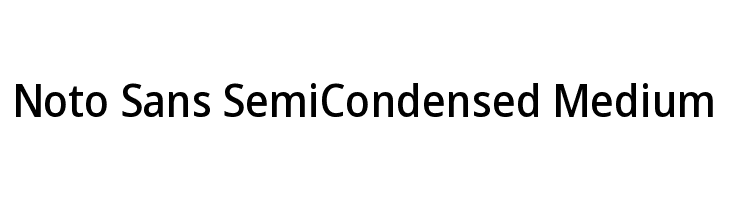
A modern, semi-condensed sans-serif font with balanced stroke widths and excellent readability.
A modern, semi-condensed sans-serif font with medium weight and italic style.
A modern, semi-condensed sans-serif font with a semi-bold weight, offering clarity and versatility.
A modern, semi-condensed sans-serif font with semi-bold italic styling.
A modern, thin sans-serif font with a semi-condensed style.
A modern, thin, semi-condensed sans-serif font with an italic style.
A thin, modern sans-serif font with a clean and minimalist design.
A sleek, modern, and thin italic typeface with elegant strokes and balanced spacing.